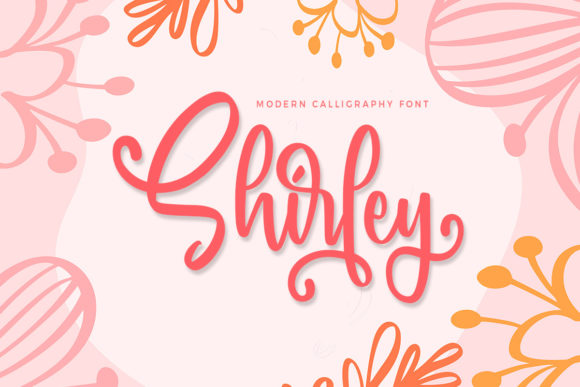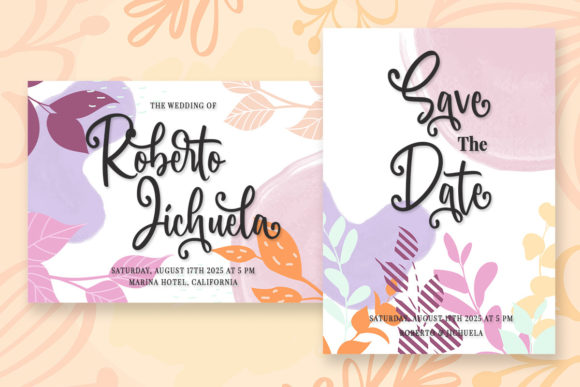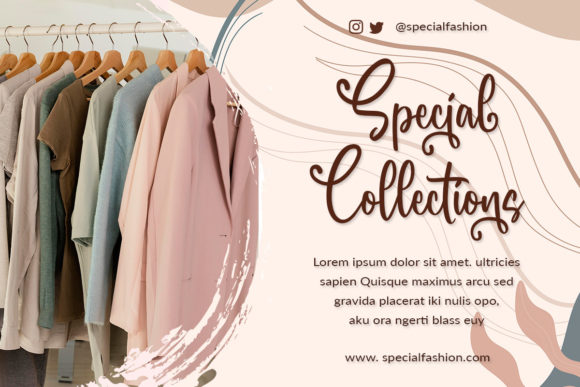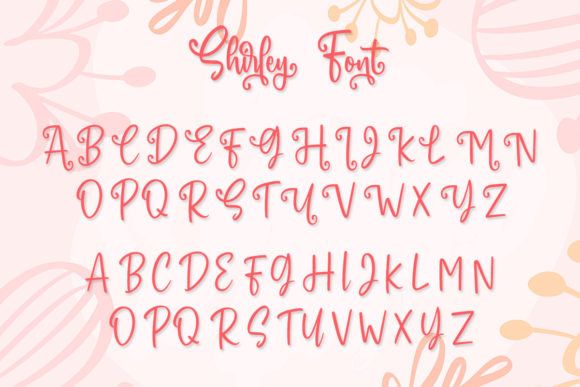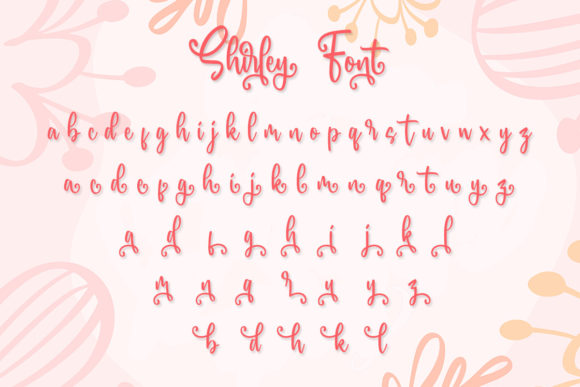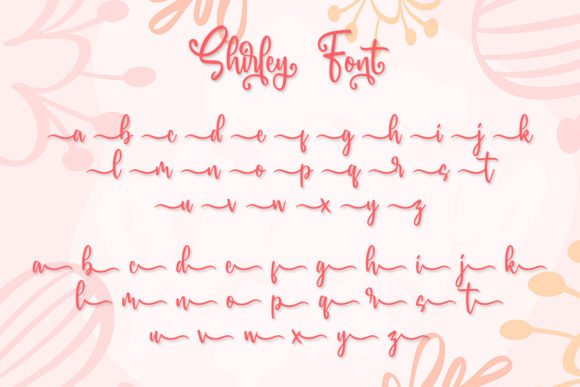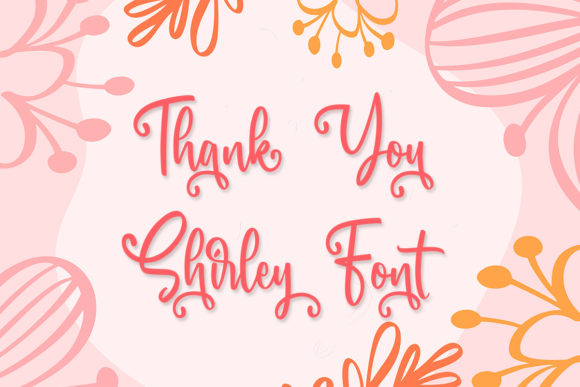
Shirley Font
About Shirley Font
Shirley is a whimsical and jolly calligraphy font. It will add a luxury spark to any design project that you wish to create! Shirley is PUA encoded which means you can access all glyphs and swashes with ease!